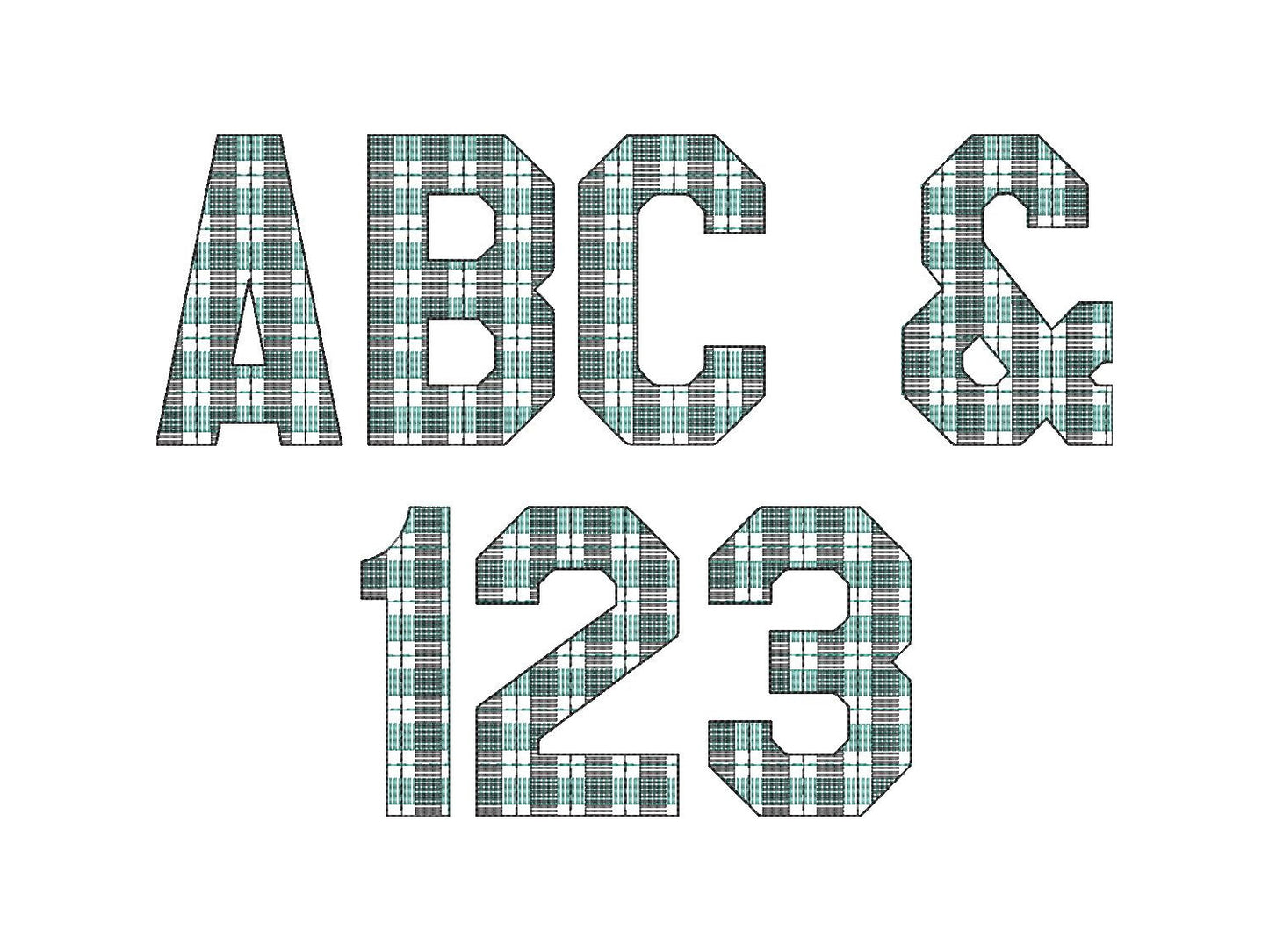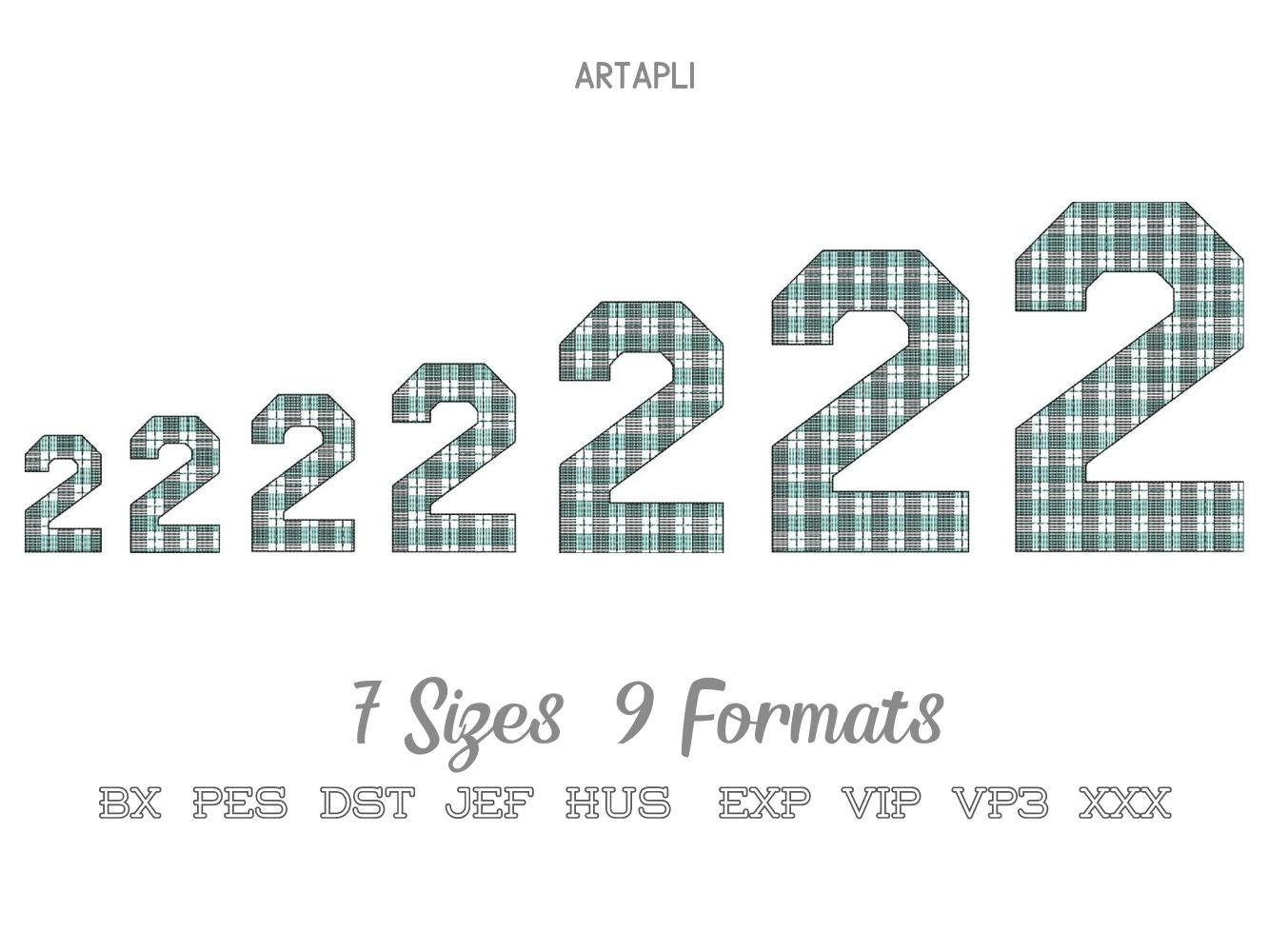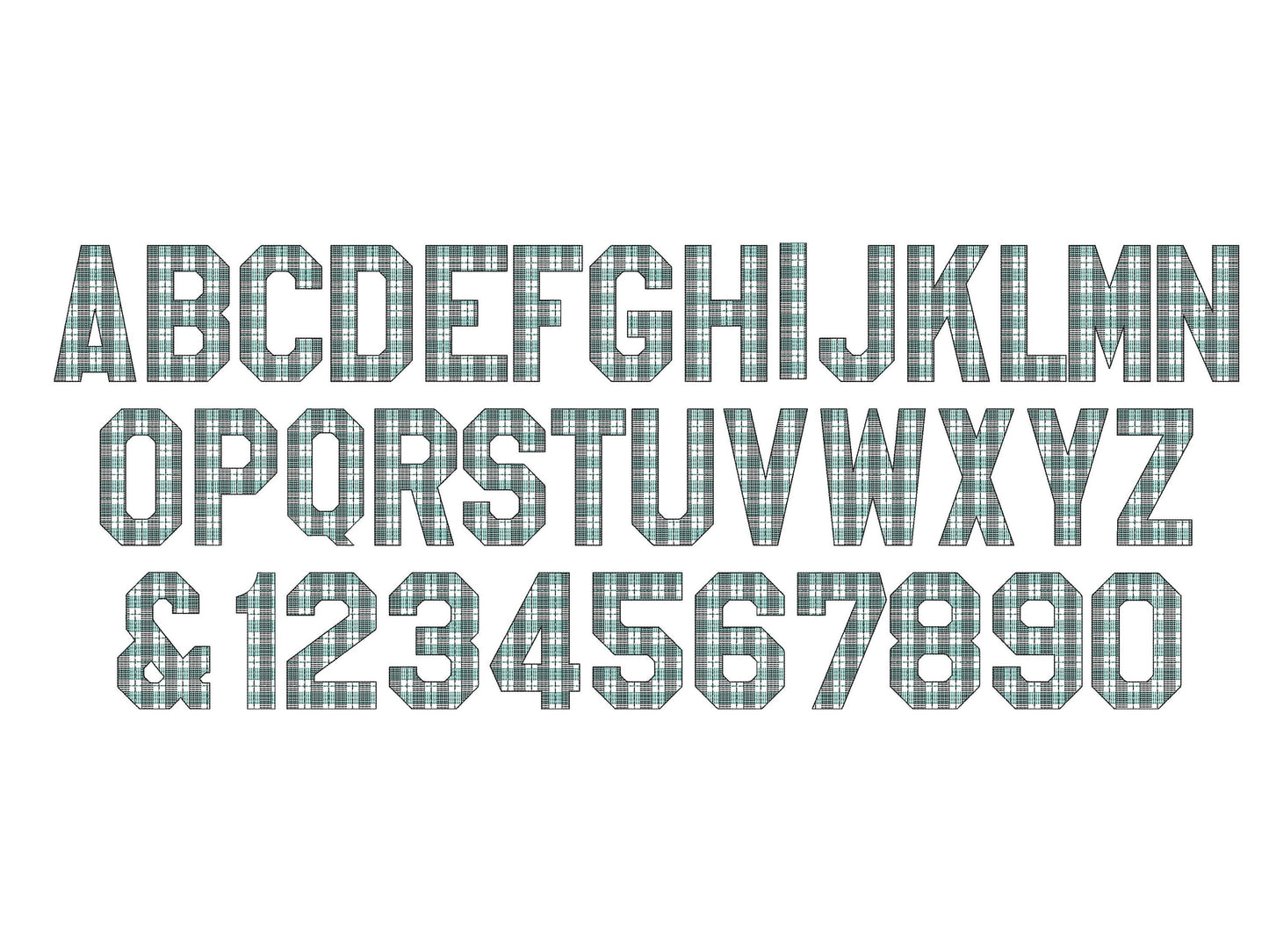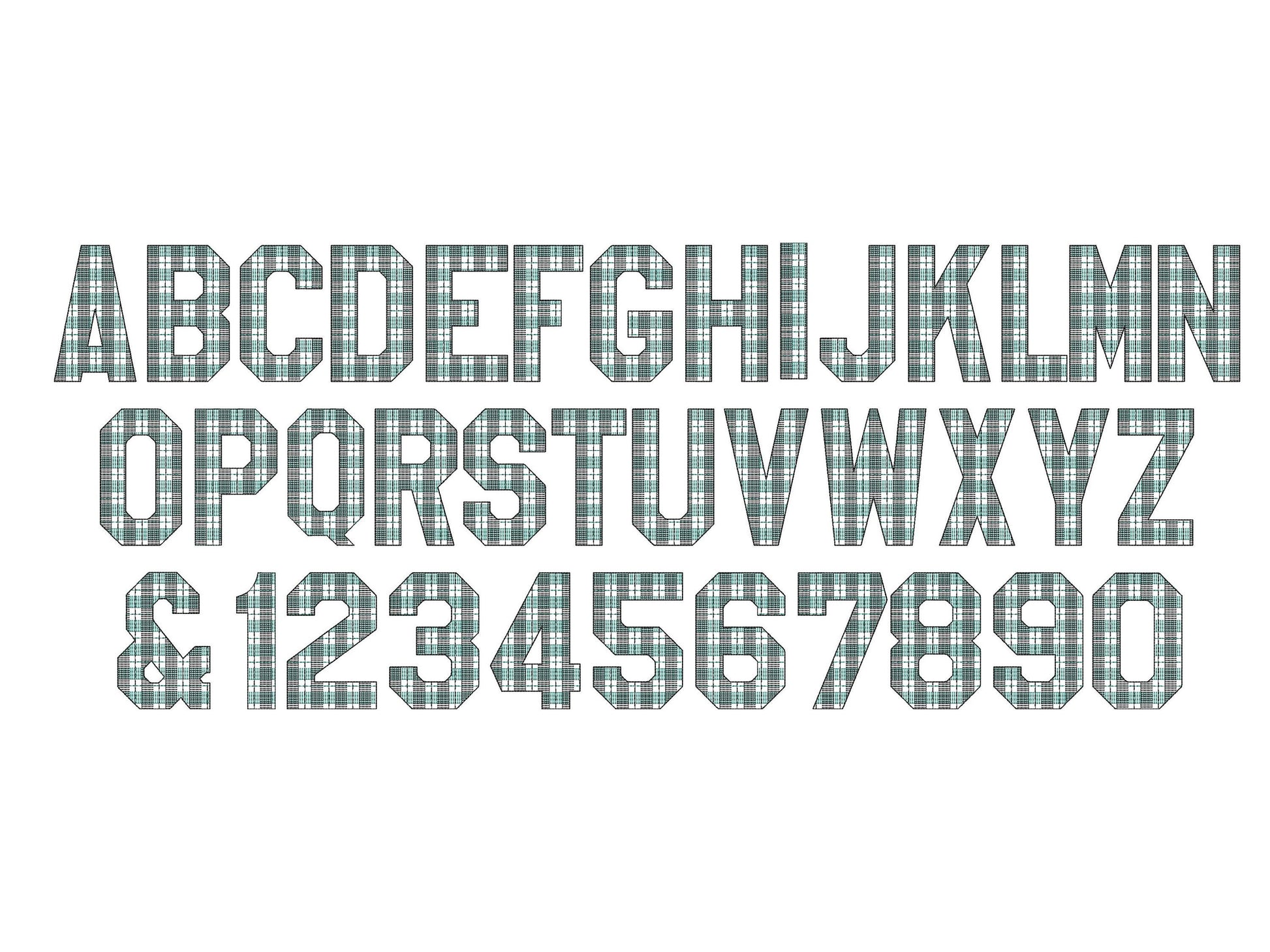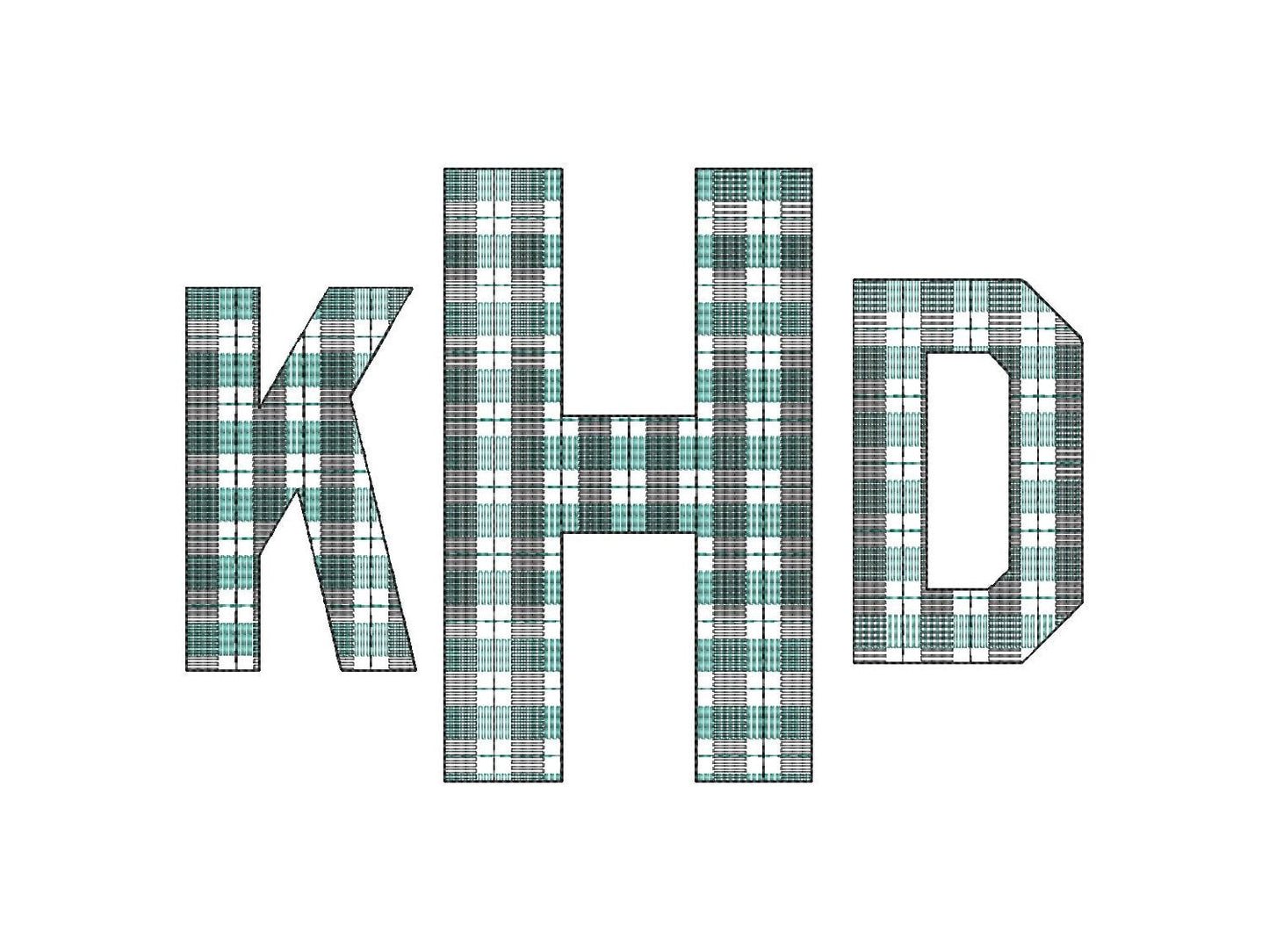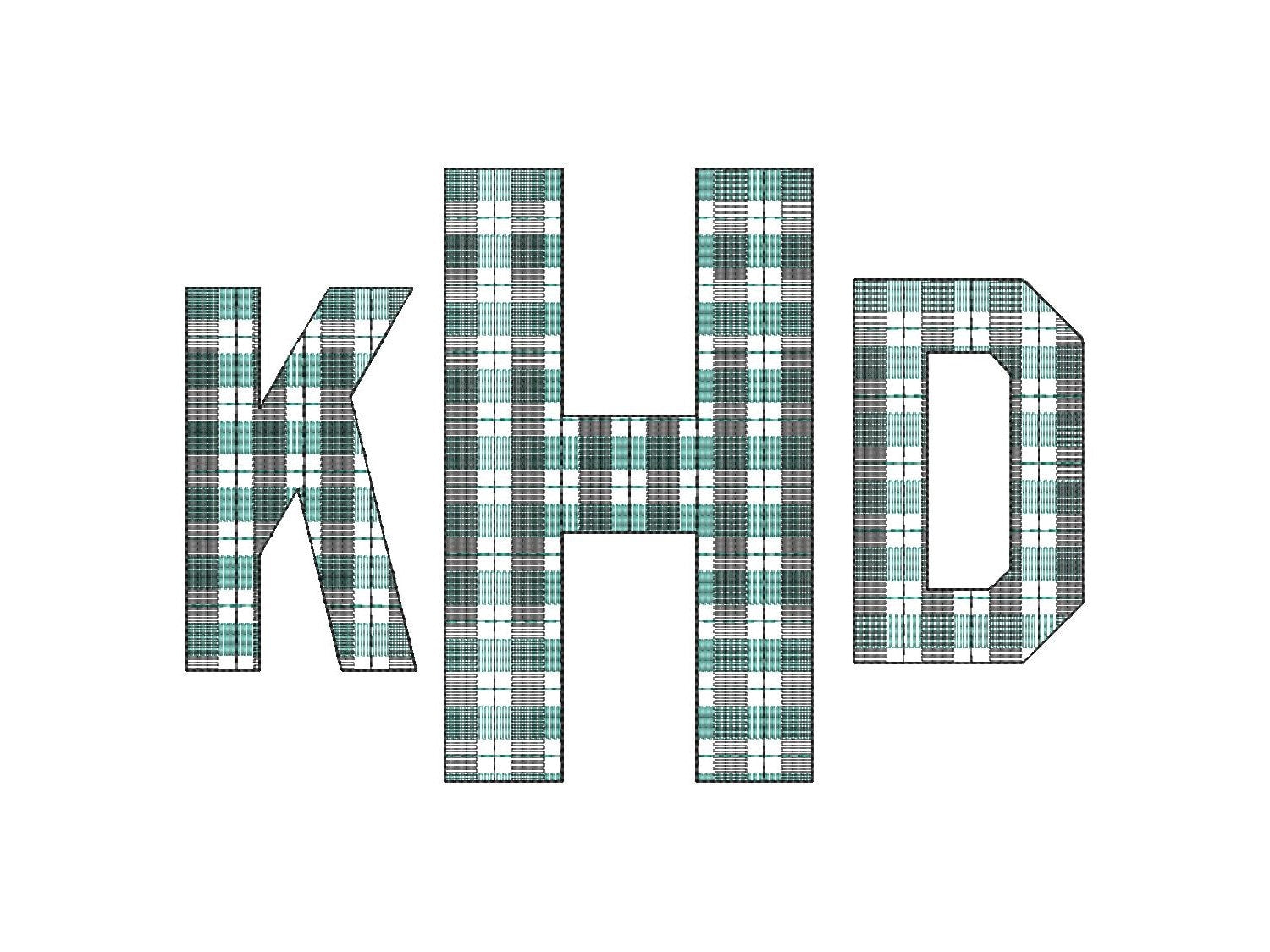
Classic Gingham Sport Font
Or click to open the linkA classic sport font with a gingham check pattern that is part of the stitching. Great for team shirts, farmhouse decor, kids' names and bags.
Uppercase letters A to Z, numbers 0 to 9 and an ampersand, in seven sizes: 2, 2.5, 3, 4, 5, 6 and 7 inches.
- Gingham check sport font
- Uppercase A-Z, numbers 0-9, ampersand
- 7 sizes, 2 to 7 in